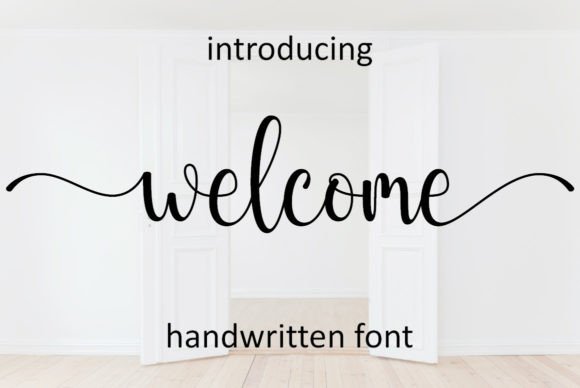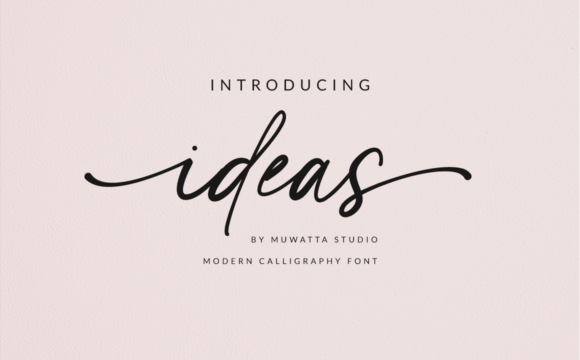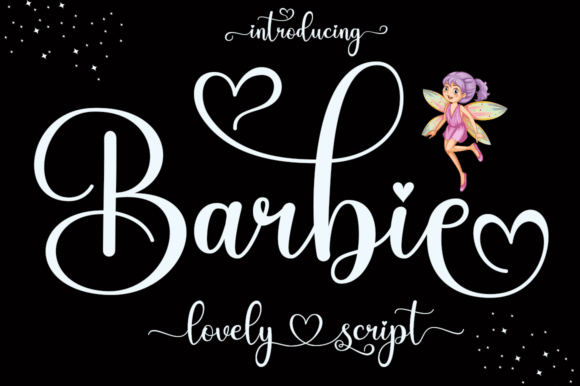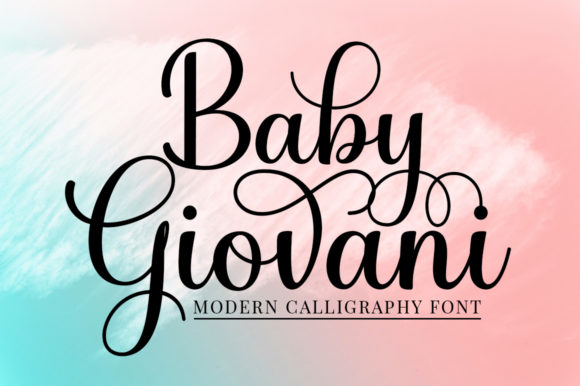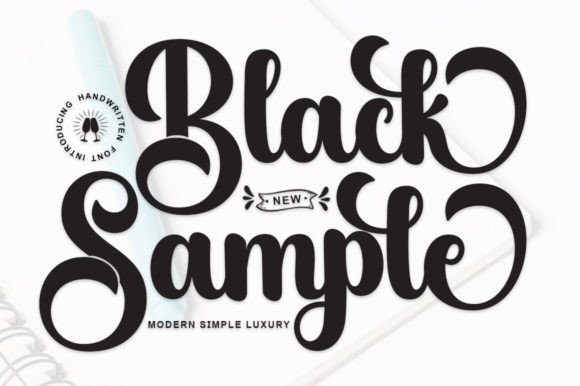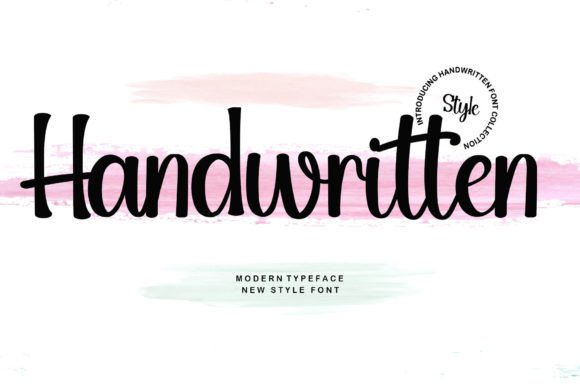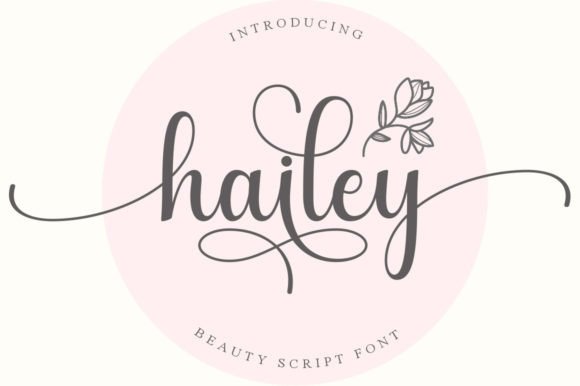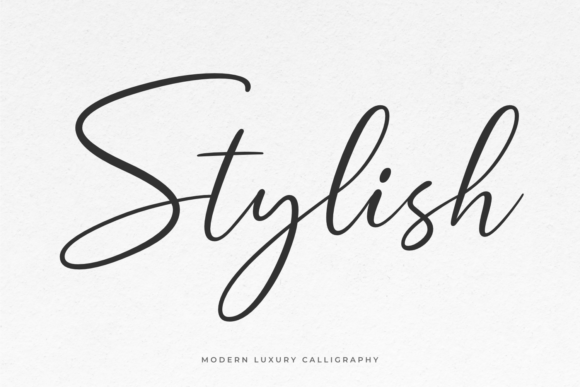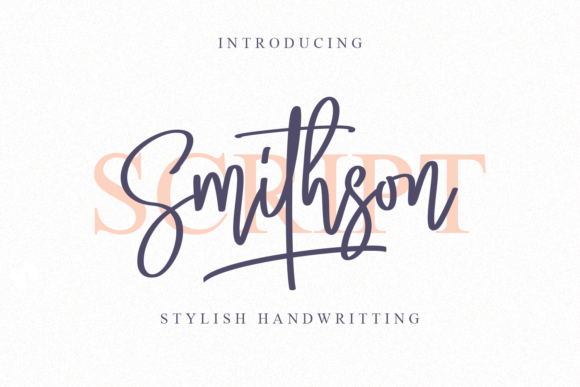
Some fonts don't just display words — they give them a personality. Script and handwritten fonts bring that warm, personal touch that turns any design from ordinary into something truly memorable.
This collection of best script and handwritten fonts is perfect for designers, crafters, bloggers, and creatives who want to add elegance, charm, and character to every project — from wedding invitations and branding logos to social media graphics, Cricut crafts, and printables. Whether you love flowing luxury calligraphy, casual everyday handwriting styles, or bold brush lettering that makes a statement — this list has a font for every mood and every project. ✍️✨
Script & Handwritten Fonts, Organized
108 handwritten and script typefaces sorted by mood — from refined calligraphy to playful brush lettering — so you can find the right voice for your next project fast.
Elegant & Calligraphy
19 fontsRefined calligraphy and classic script styles with graceful curves and balanced letterforms — built for invitations, branding, and anything that calls for a touch of class.
Handmade Calligraphy
A polished calligraphy script with graceful letter connections — clean and feminine, ideal for invitations, menus, and packaging.
Gastonia Script
A modern calligraphy font with flowing strokes and graceful curves — refined for invitations and upscale branding.
Thick Black
A soft, elegant script with a feminine touch — elevates branding, titles, invitations, and signage.
Amelia Rose Font
A refined modern calligraphy script with a smooth, natural flow — luxurious for branding and high-end design.
Stylish Alphabet
A soft, graceful script with a feminine touch — elevates branding, titles, invitations, and signage.
Welcome
A stylish, elegant handwritten font — striking on invitations, thank-you cards, quotes, and logos.
Joseph Sophia
A charming and elegant script with a varying baseline and smooth lines — lovely for cards and handwritten branding.
Ideas
A sophisticated modern font balancing classic calligraphy with contemporary style — elegant for invitations and branding.
Bulky
A charming, elegant handwritten font — striking on invitations, cards, quotes, and business branding.
Barbie
An elegant, flowing handwritten font with varied baselines and stunning alternates — classy yet contemporary.
Baby Giovani Script
A chic, refined script with stylish alternates and ligatures — a sophisticated match for any project.
Stay Wonderful
A thin, beautiful handwritten font with distinct, well-rounded letters — versatile for spectacular designs.
Black Sample
A stunning script paying homage to classic calligraphy — elevates branding, titles, and invitation designs.
Family
A delicate, refined script with stylish alternates and ligatures — a sophisticated match for any project.
Handwritten
A trendy handwritten font with a contemporary feel — inspired by timeless calligraphy for elegant projects.
Hailey
A delicate, elegant, flowing handwritten font with a distinct timeless style for spectacular designs.
Stylish
A graceful modern calligraphic font with beautiful rhythm — classy for branding, invitations, and cards.
Smithson
An exquisite handwritten font with classy calligraphic influence — contemporary and fresh for any project.
Alignment
A modern calligraphy script with elegant swashes and balanced contrast — classy for branding and packaging.
14 fontsTender, heartfelt scripts with delicate swashes and a warm, affectionate feel — perfect for love notes, wedding pieces, and gentle, feminine designs.